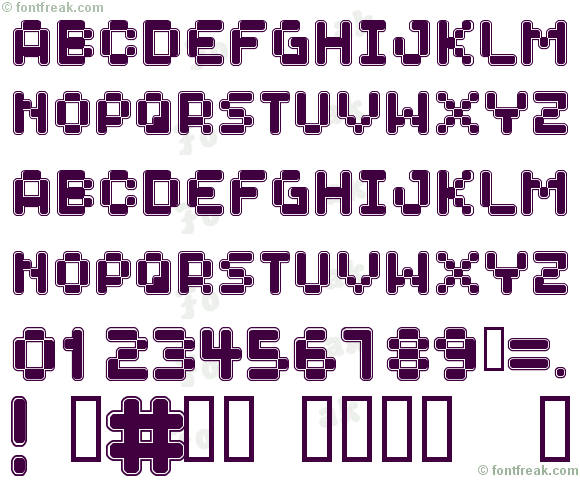
Spaceboy
About Spaceboy
The Spaceboy font, designed by Pizzadude, is a unique display typeface that captures the essence of retro futurism and playful aesthetics. This freeware font features a bold and geometric structure, making it an eye-catching choice for various design projects. With its thick stroke weight and contrasting line thickness, Spaceboy stands out with a distinctive blocky appearance that evokes a sense of nostalgia while remaining modern. The rounded edges and open spaces between letters contribute to its playful vibe, creating a sense of movement and energy that draws the viewer's attention.
Spaceboy is particularly well-suited for a range of creative applications. Its distinctive style makes it ideal for movie posters, especially in sci-fi genres, where it can enhance the futuristic theme. Additionally, it works wonderfully for children's book covers or educational materials, adding a fun element that resonates with younger audiences. Restaurant menus can benefit from its unique character, especially in establishments with a quirky or themed atmosphere. Furthermore, graphic designers may find it perfect for branding projects that require a memorable and engaging presence.